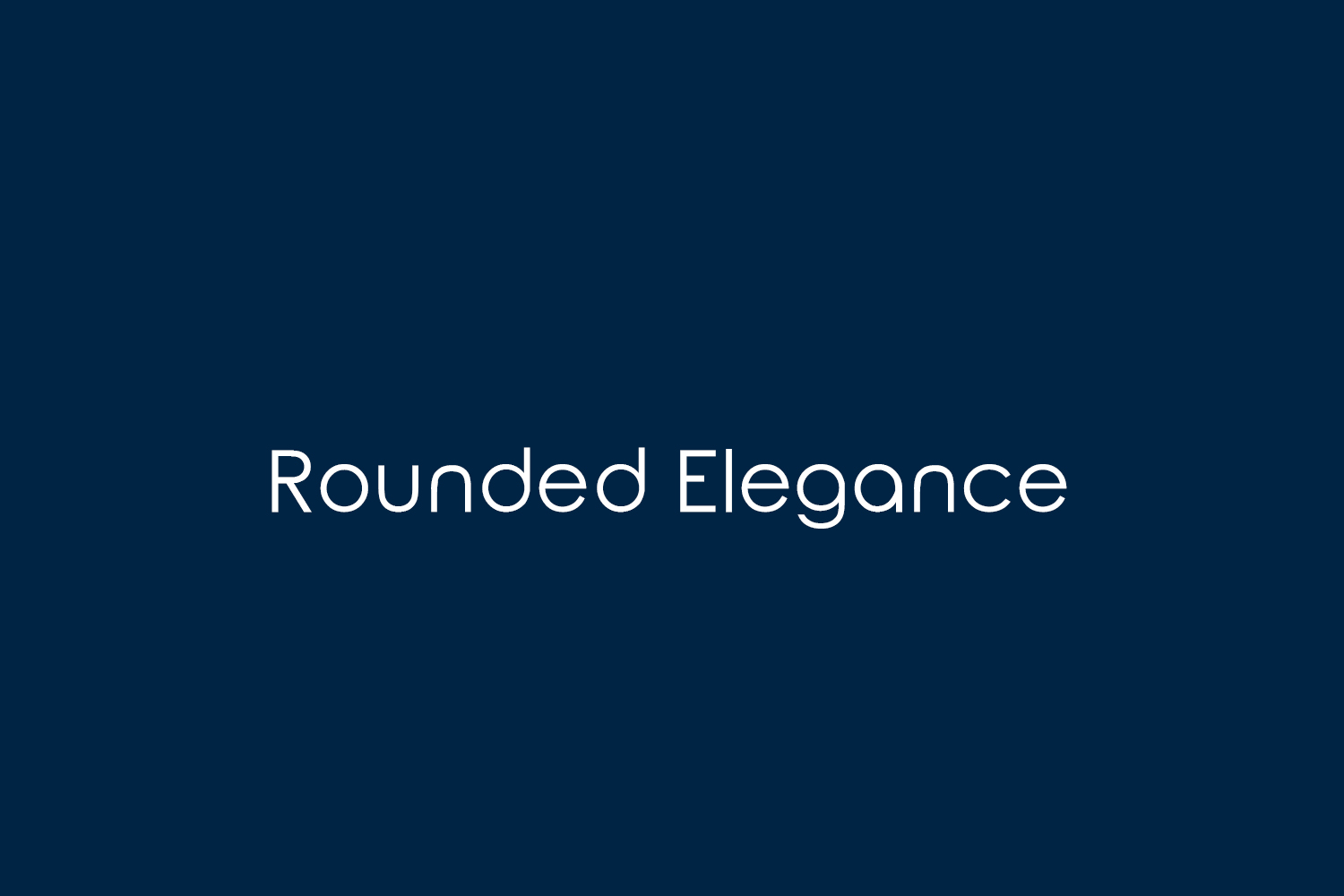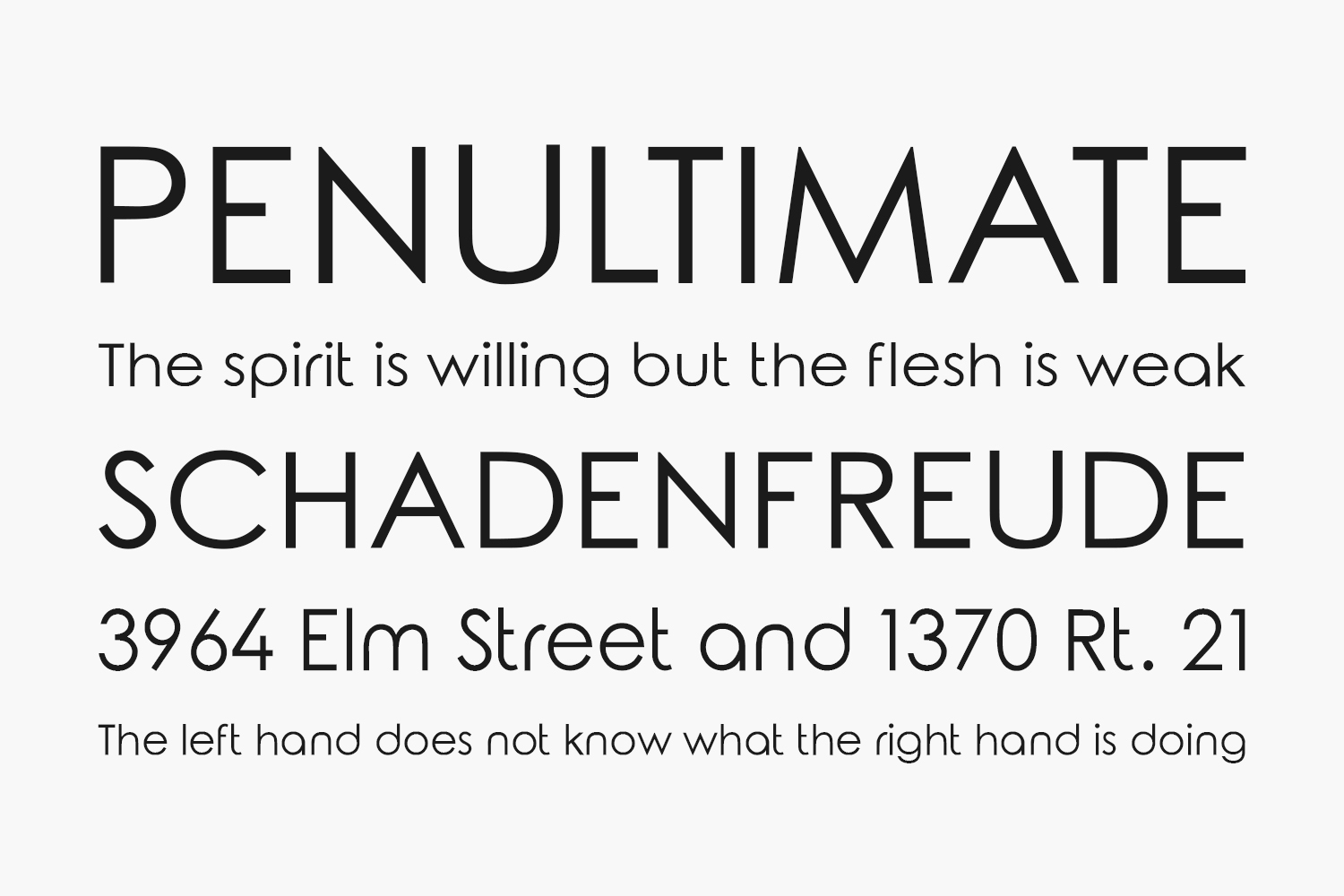
Rounded Elegance Free Font was based on sources “Giorgio”, “Abeat By Ky” and “Ukiji”. My idea was to create a source with no burrs and rounded and smooth contours. In this version 2.0 have been fixed some outline of the letters “m” and “a”, some signs and distance from underline to the main body of the font.